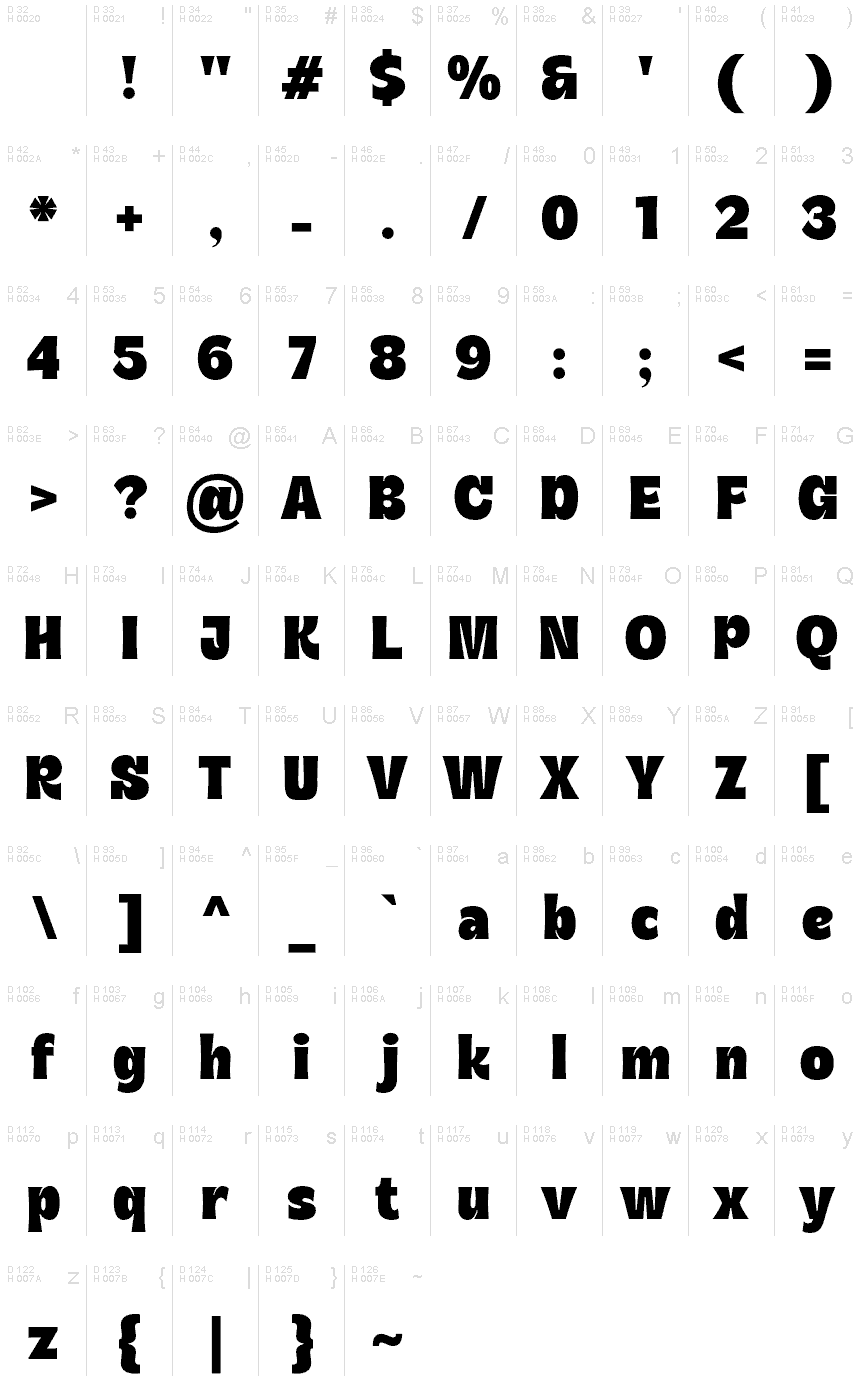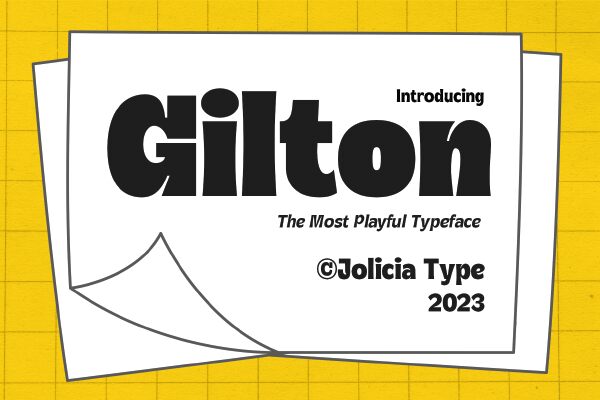
Gilton-Bold
Gilton Bold font by Jolicia Type Foundry is a bold display font that carries a retro-inspired design. The overall design’s inspiration from the 70s and 80s does not prevent it from belonging to modern-day graphic scenes. Geometric feel, solid presence, and distinct character are just some of this font’s exceptional qualities which made it one of the most famous fonts of its family.
Use Gilton Bold for branding, advertising, and packaging projects where you can benefit at best from its geometric look. Get a nice logotype design or outdoor advertisement billboard when you make Gilton part of your conceptual process. All editorial projects like magazines will be taken to new heights with readable typography ideas whether in headings or body text parts.
Gilton by Jolicia Type Foundry